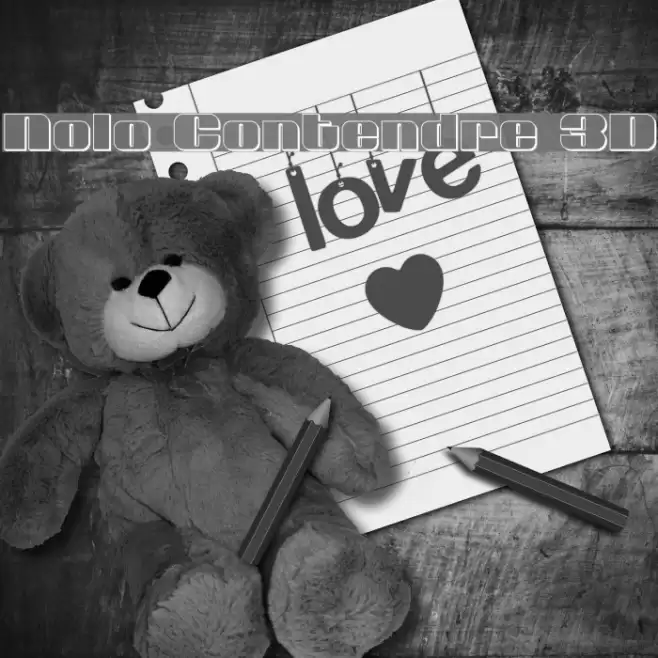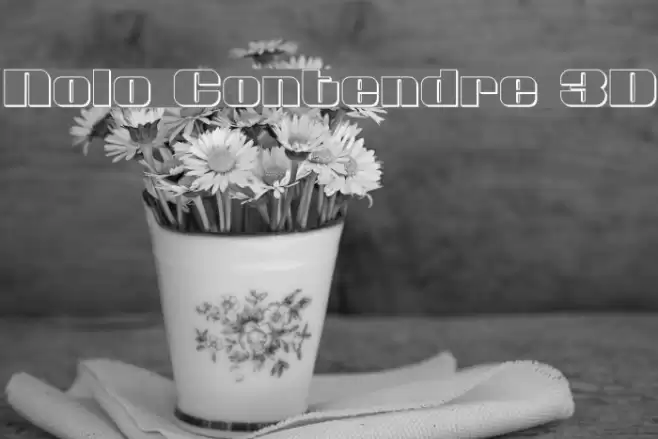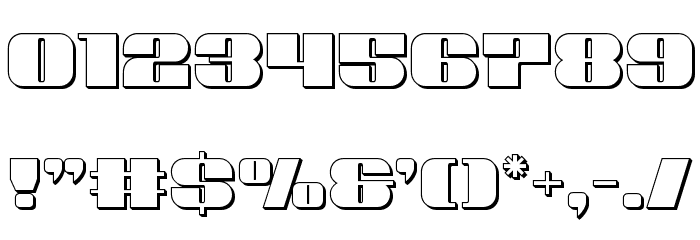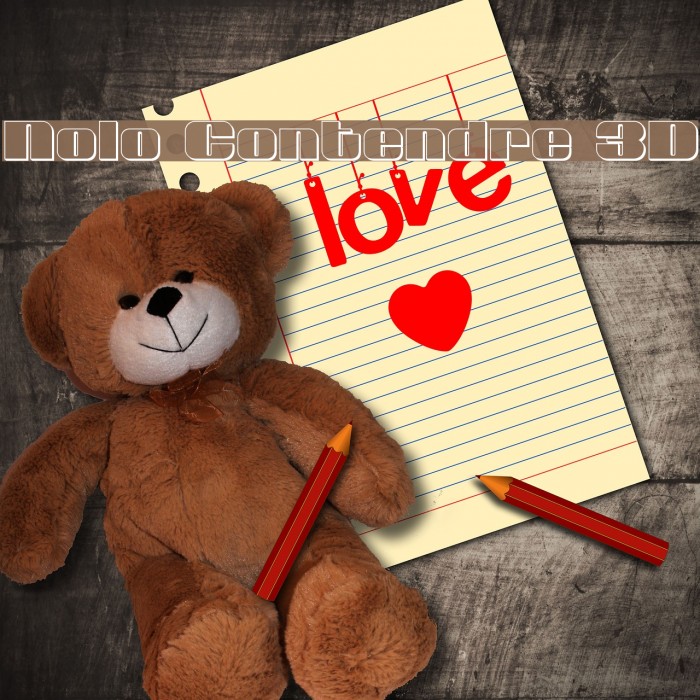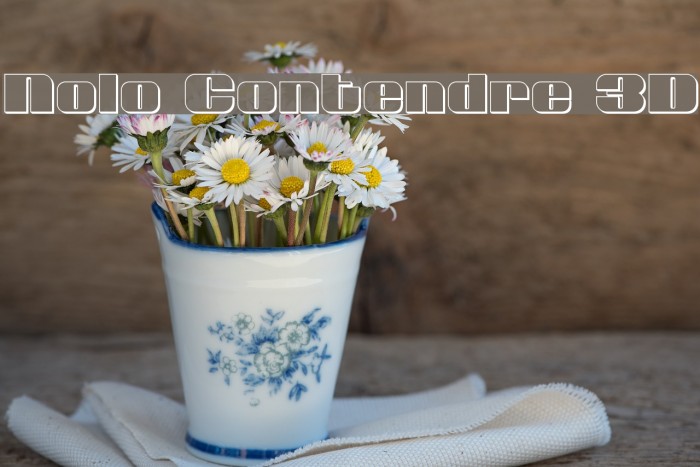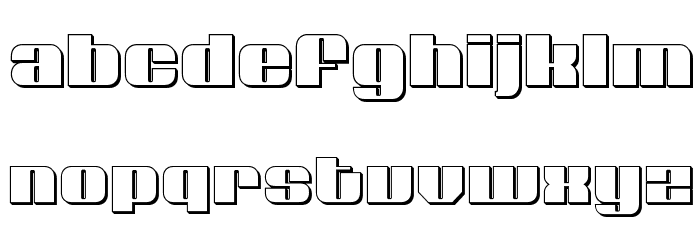
Nolo Contendre 3D Font
Nolo Contendre 3D Description
This font features a bold, three-dimensional appearance with a strong outline that gives each character a distinct, blocky look. The uppercase and lowercase letters maintain a consistent width, creating a uniform and cohesive style. The numbers and special characters follow the same design principles, ensuring a harmonious overall appearance. The font's geometric structure and clean lines make it highly legible, even at smaller sizes. Its unique 3D effect adds depth and interest, making it suitable for eye-catching designs.
A bold, 3D font with strong outlines and a blocky, geometric style from Uncategorized fonts.
- Proposed Projects: Ideal for poster designs, video game graphics, branding materials, and any project requiring a standout, modern typeface.